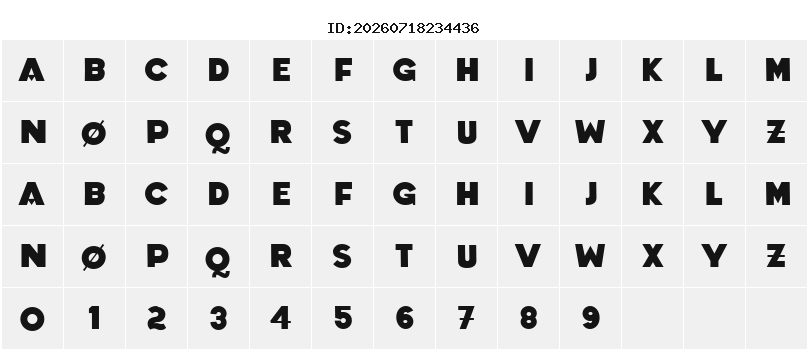
Coradium Preview
• Font Name: Coradium
• Font ID: JamesBarnardo: Coradium: 2014
• Full Font Name: Coradium
• PostScript Name: Coradium
• Character Count: 139
• Designer: James Barnardo
• Manufacturer: James Barnardo
About Coradium.ttf
Coradium.ttf is a modern, elegant sans-serif font designed for ultimate readability and visual harmony. Perfect for branding, headlines, web design, and print materials.